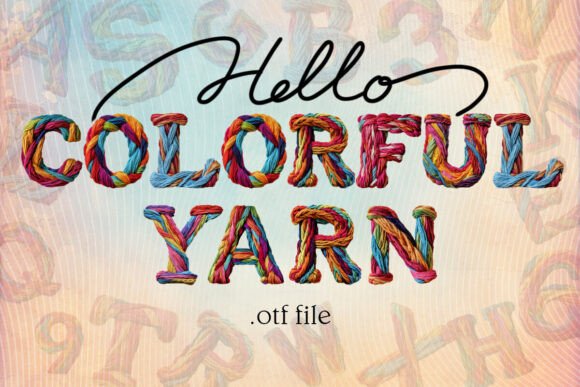
Introducing the Colorful Yarn Alphabet Font: Add a Touch of Festive Charm to Your Designs
The holiday season is upon us, and what better way to get into the spirit than with a font that embodies the warmth and nostalgia of Christmas? Look no further than the Colorful Yarn Alphabet font, a vibrant and unique typeface that brings to mind the cozy, old-world charm of Grandma’s house at Christmas time. This font is perfect for designers looking to add a touch of festive flair to their projects, and we’re excited to dive into its features and benefits in this article.
What Makes the Colorful Yarn Alphabet Font So Special?
The Colorful Yarn Alphabet font is a true standout in the world of typography. Its most distinctive feature is its colorful, textured appearance, which resembles delicate strands of yarn. This unique effect gives the font a sense of depth and dimensionality, making it perfect for designs that need to pop. Whether you’re creating Christmas cards, holiday-themed party invitations, or festive social media graphics, this font is sure to bring a smile to your audience’s faces.
Another key benefit of the Colorful Yarn Alphabet font is its ability to evoke a sense of nostalgia and warmth. The font’s yarn-like texture has a distinctly homespun feel, reminiscent of handmade crafts and cozy winter nights by the fire. This makes it an ideal choice for designers looking to create a sense of comfort and familiarity in their work.
10 Design Ideas to Get You Started with the Colorful Yarn Alphabet Font
Now that we’ve covered the features and benefits of the Colorful Yarn Alphabet font, let’s dive into some design ideas to get you started:
- Christmas party invitations: Create festive and fun party invitations that set the tone for a joyful holiday celebration.
- Holiday greeting cards: Design personalized greeting cards for friends and family, complete with a special holiday message.
- Festive social media graphics: Add a pop of color and festive cheer to your social media graphics, perfect for promoting holiday deals or events.
- Christmas gift tags: Create custom gift tags that add a personal touch to your holiday gifts.
- Winter wonderland scenes: Use the Colorful Yarn Alphabet font to create whimsical winter wonderland scenes, complete with snowflakes, trees, and festive characters.
- Holiday-themed party decor: Design festive party decor, such as banners, garlands, and signs, to create a cohesive and fun holiday atmosphere.
- Custom holiday mugs: Create personalized holiday mugs with a special message or name, perfect for hot cocoa or coffee.
- Festive blog headers: Add a touch of holiday cheer to your blog headers, perfect for promoting holiday content or events.
- Holiday email newsletters: Create festive and engaging email newsletters that spread holiday cheer to your subscribers.
- Christmas craft tutorials: Use the Colorful Yarn Alphabet font to create fun and colorful craft tutorials, perfect for holiday crafting projects.
Tips and Tricks for Getting the Most Out of the Colorful Yarn Alphabet Font
To get the most out of the Colorful Yarn Alphabet font, here are some tips and tricks to keep in mind:
- Experiment with different colors: While the font comes in a range of vibrant colors, feel free to experiment with different color combinations to create a unique look.
- Mix and match with other fonts: Combine the Colorful Yarn Alphabet font with other fonts to create a unique and eye-catching design.
- Use it for headlines and titles: The font’s bold and colorful appearance makes it perfect for headlines and titles, adding a touch of festive flair to your designs.
- Don’t be afraid to get creative: The Colorful Yarn Alphabet font is a versatile typeface that can be used in a range of creative projects, from craft tutorials to social media graphics.
Conclusion: Add a Touch of Festive Charm with the Colorful Yarn Alphabet Font
In conclusion, the Colorful Yarn Alphabet font is a unique and vibrant typeface that’s perfect for adding a touch of festive charm to your designs. With its colorful, textured appearance and nostalgic warmth, this font is sure to bring a smile to your audience’s faces. Whether you’re a designer, crafty DIY enthusiast, or simply someone who loves the holiday season, this font is a must-have for any festive project. So why wait? Dive into a world of color and joy with the Colorful Yarn Alphabet font today!